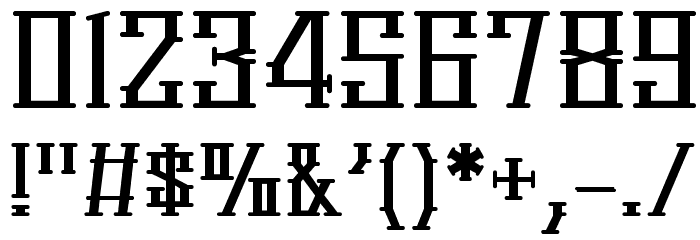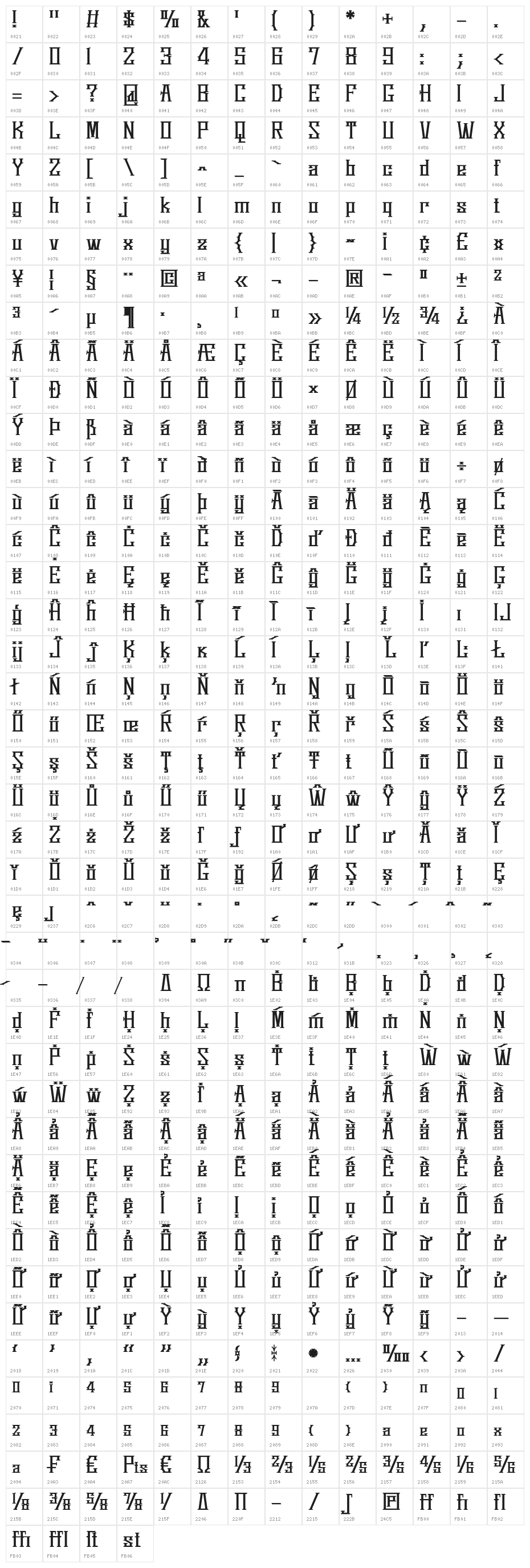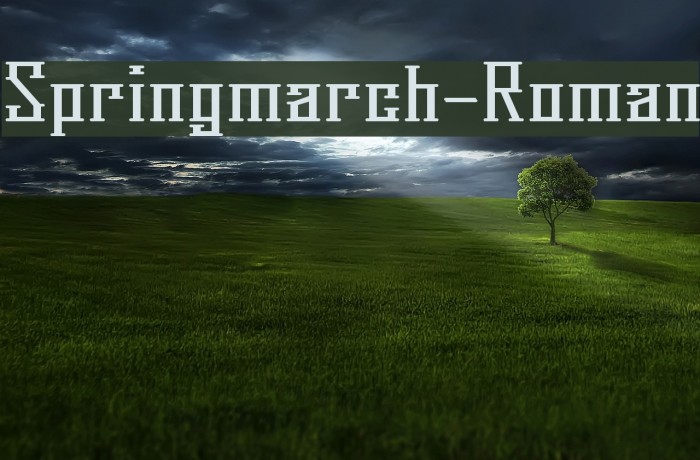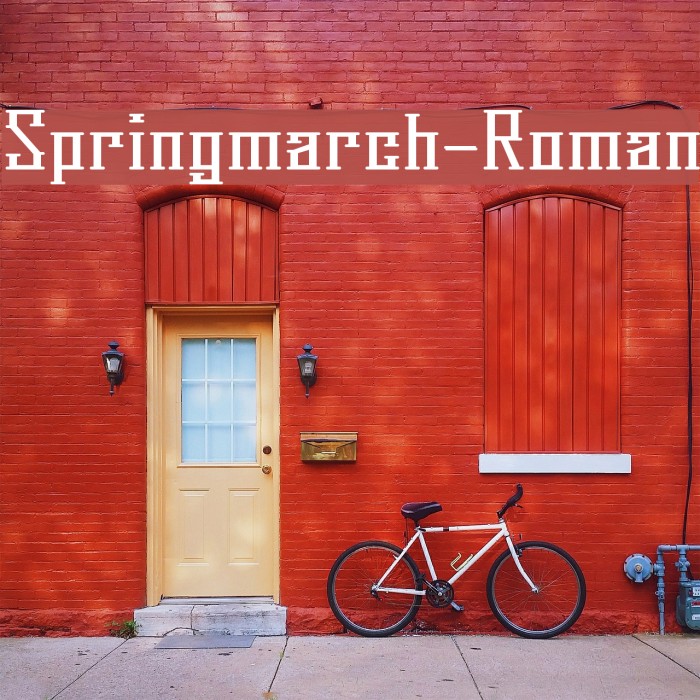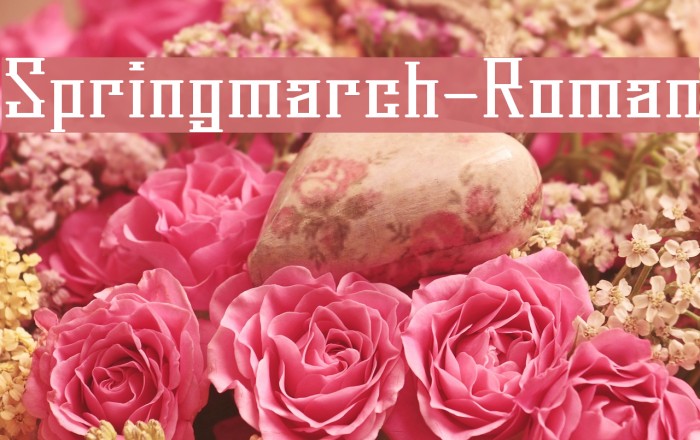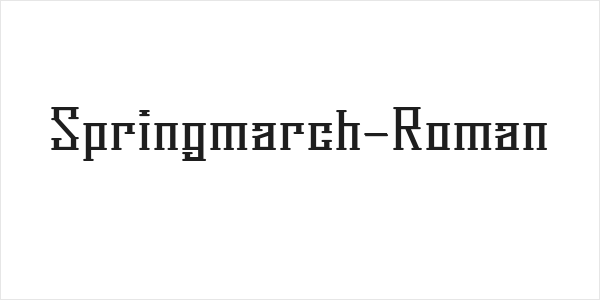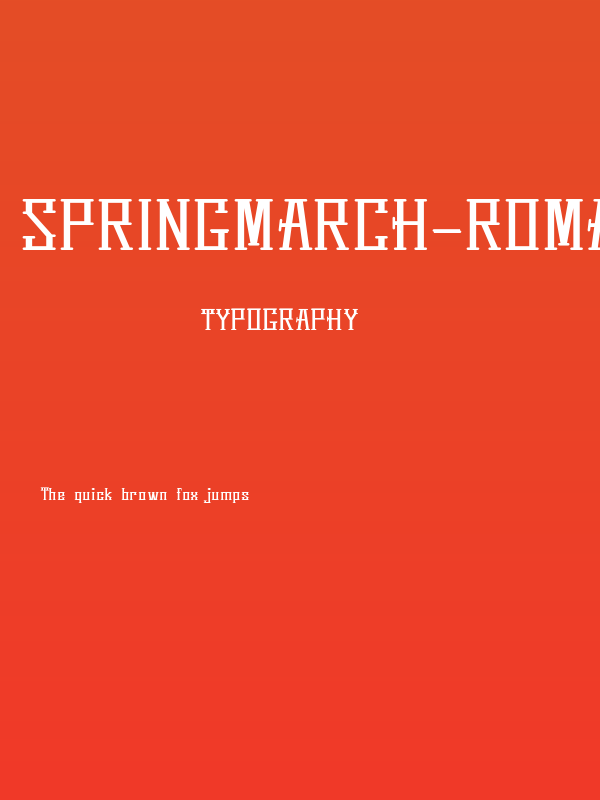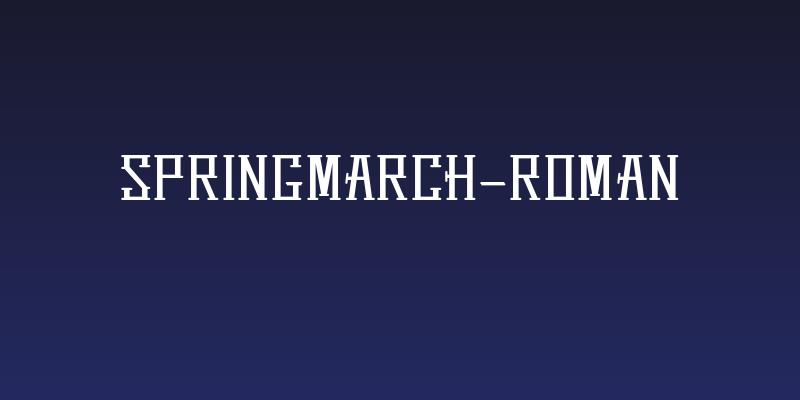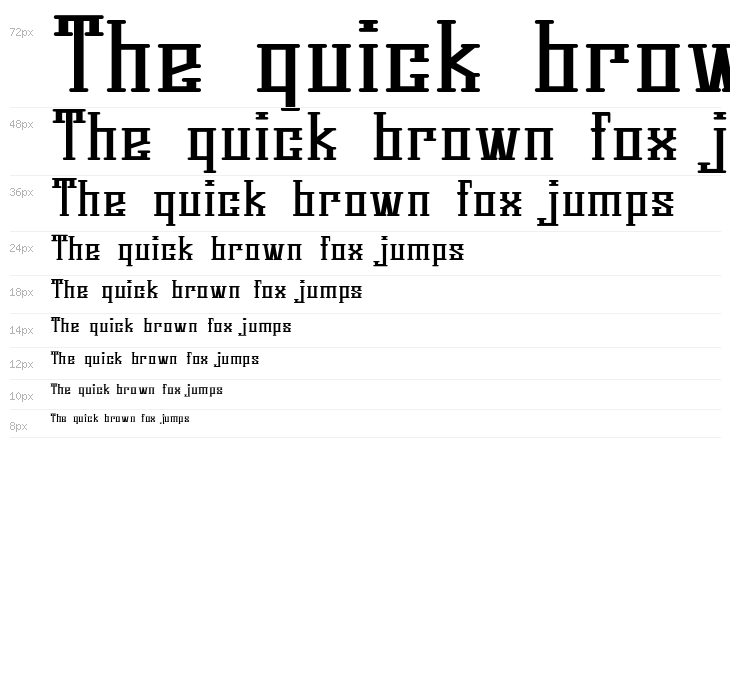
Springmarch-Roman Font
Springmarch-Roman Description
This font features a bold and structured design with a distinct geometric influence. The uppercase letters are characterized by sharp angles and a consistent stroke width, giving them a strong and authoritative appearance. The lowercase letters maintain this geometric style, with some unique variations that add a touch of individuality. The numerals are equally bold, ensuring readability and consistency across different uses. Special characters are well-integrated, maintaining the overall aesthetic of the font. This font's design is both modern and slightly industrial, making it suitable for a variety of applications.